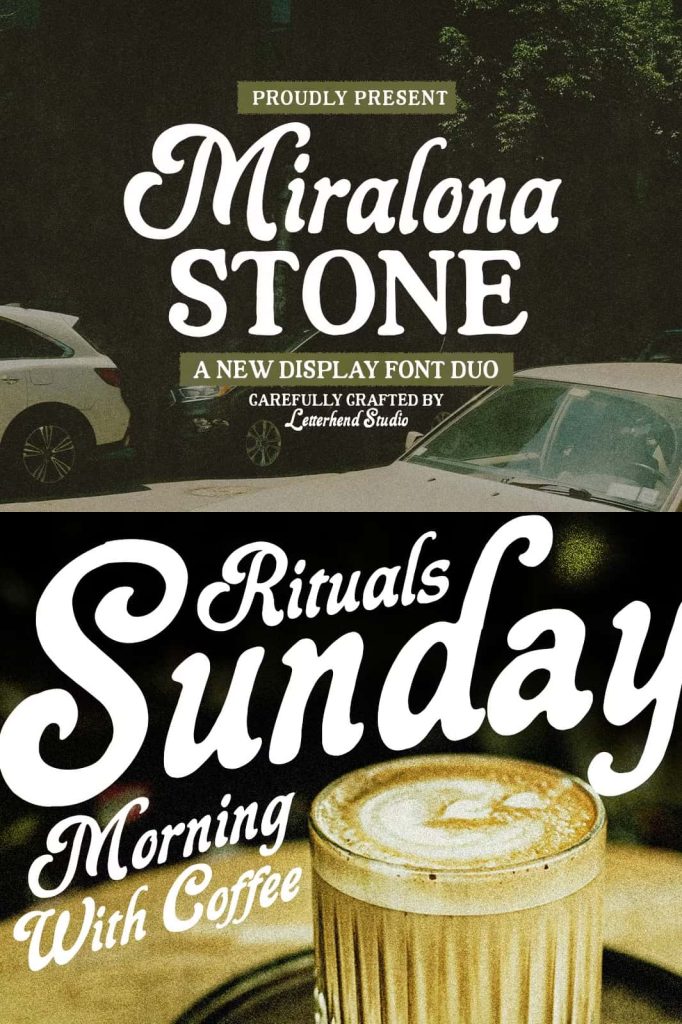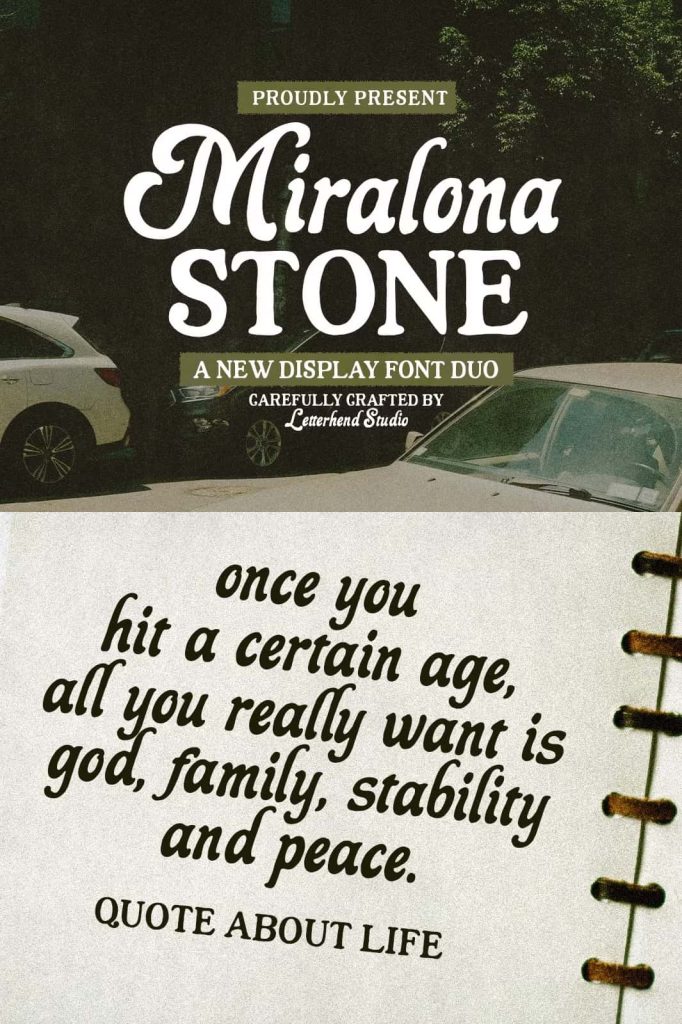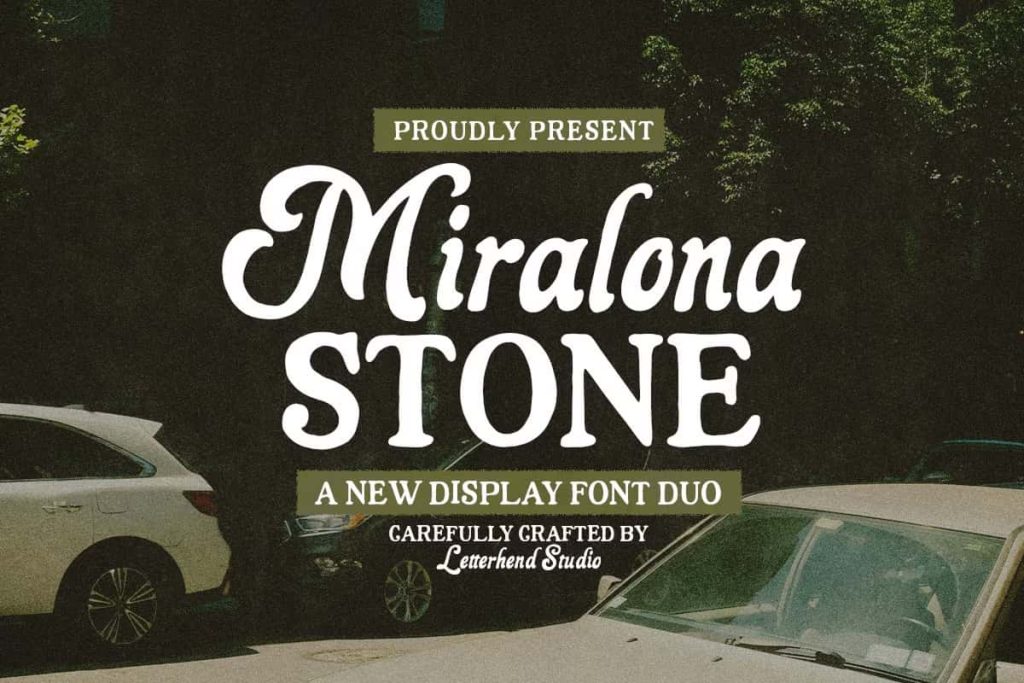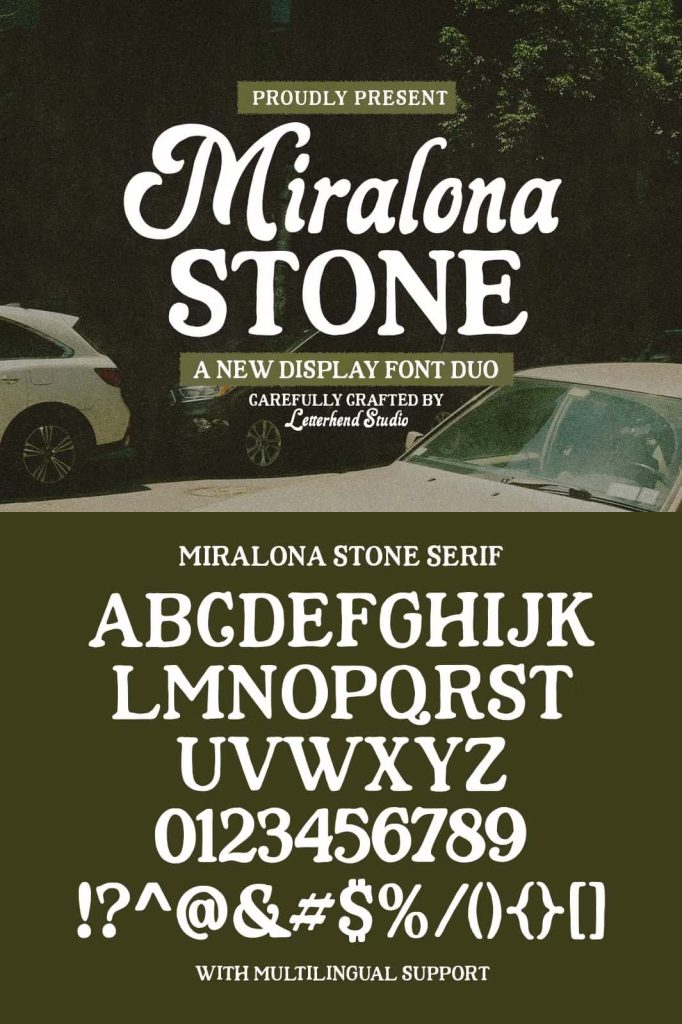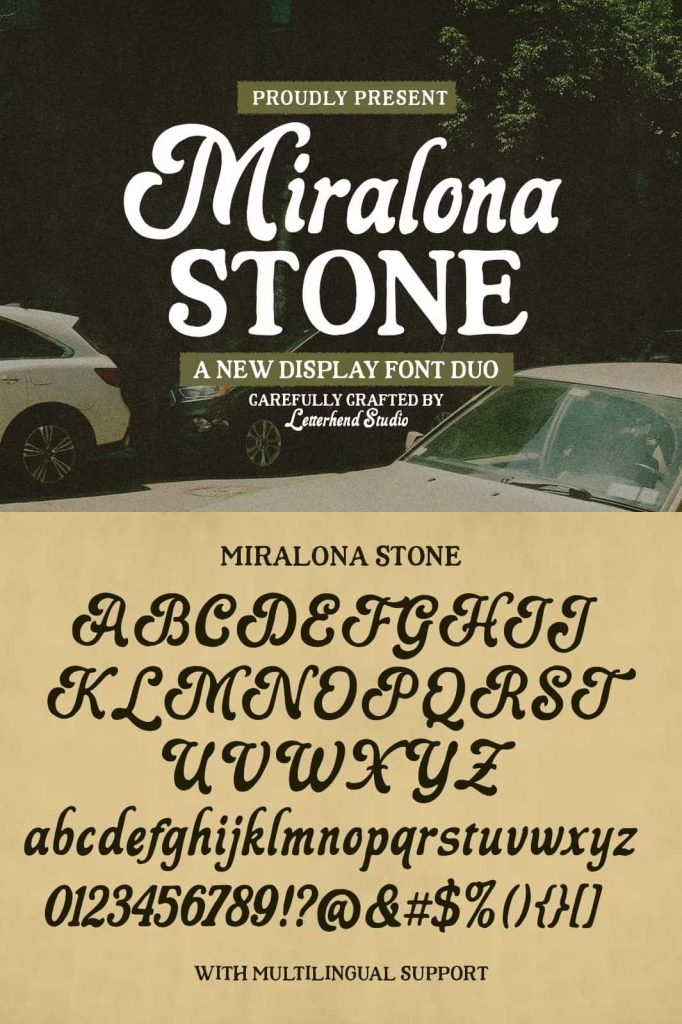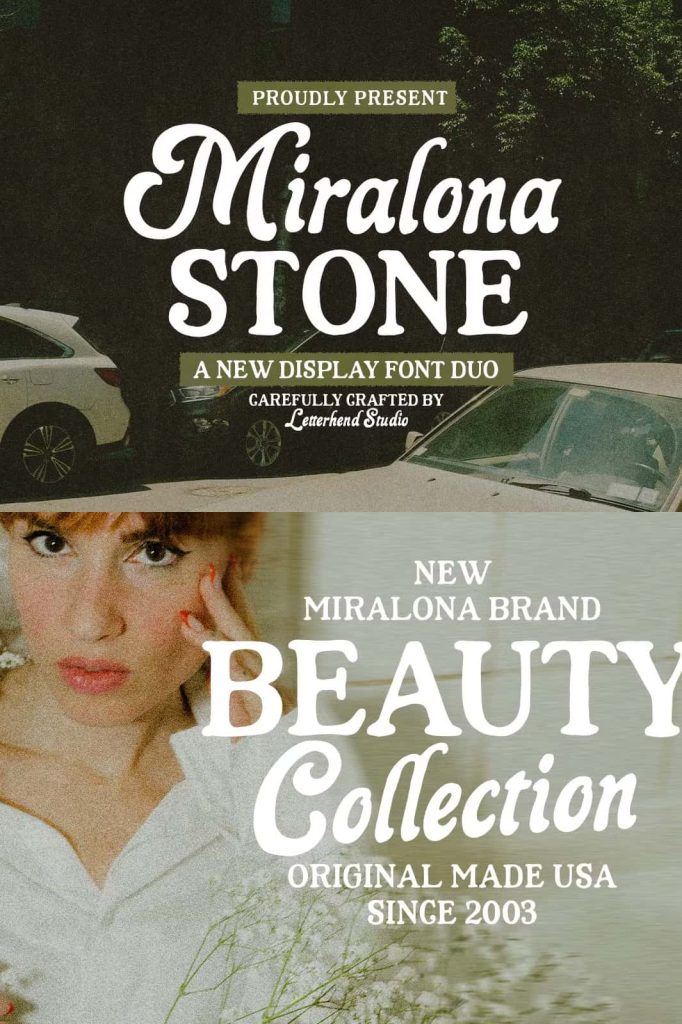
Miralona Stone – A Bold and Expressive Display Font Duo
Miralona Stone is a bold and expressive display font duo that combines vintage elegance with modern strength. By bringing together an ornate script and a sturdy serif typeface, this versatile pair gives designers the freedom to create typography with contrast, personality, and a timeless visual presence.
The script style introduces flowing forms and handcrafted charm, creating an expressive appearance that can add warmth and sophistication to a design. In contrast, the serif delivers a stronger and more structured personality, making it an excellent choice for headlines, logos, packaging, and other applications where typography needs to command attention.
Together, these two styles create a balanced typographic system. The script can add decorative detail and personality, while the serif establishes structure and visual authority. Use them individually or combine them within the same composition to create a stylish contrast that feels both nostalgic and contemporary.
A Distinctive Combination of Script and Serif
The strength of Miralona Stone comes from the relationship between its two complementary styles. Each typeface offers a different visual personality, yet they work together naturally to create a cohesive design language.
The ornate script brings movement to your typography. Its flowing character can make names, short phrases, taglines, and decorative headlines feel handcrafted and expressive. Use it when you want to introduce elegance, personality, or a sense of artistic detail.
The serif takes a more confident approach. Its sturdy construction creates strong visual weight, making it effective for headlines, brand names, packaging titles, and editorial statements. When you combine the two, the contrast creates an immediate visual hierarchy.
Vintage Elegance with a Modern Perspective
Miralona Stone draws from the visual appeal of vintage typography while maintaining enough strength and flexibility for modern design. Its classic influences can evoke old advertisements, heritage brands, handcrafted signage, editorial covers, and traditional packaging.
At the same time, the bold structure of the serif keeps the family from feeling overly delicate or dated. This balance allows designers to create work that references the past while maintaining a confident contemporary appearance.
Use Miralona Stone for projects that need a sense of history, craftsmanship, and personality. It can transform a simple headline into a visual statement while providing enough flexibility to support a complete branding system.
The Ornate Script Style
The script component of Miralona Stone provides an elegant and decorative alternative to conventional display lettering. Its flowing forms create a handcrafted impression that works especially well when typography needs to feel personal and expressive.
Use the script for logos, brand signatures, wedding stationery, invitations, packaging details, product names, fashion graphics, and decorative headlines. Its ornate character can help emphasize a specific word or phrase and create a strong focal point within a composition.
Because the script carries significant visual personality, it can also work effectively as a standalone display style. Use it sparingly with generous spacing and a simple supporting layout to allow its decorative details to remain visible.
The Strong and Sturdy Serif
The serif style provides the structural foundation of the Miralona Stone duo. Its bold appearance makes it particularly effective for high-impact typography where the message needs to stand out immediately.
Use the serif for large headlines, logos, packaging names, posters, magazine titles, editorial layouts, and advertising graphics. Its strong presence helps establish hierarchy while giving the design a confident and established appearance.
The serif can also support more minimal compositions. Pair it with clean backgrounds, restrained layouts, or simple graphic elements to create a modern interpretation of vintage typography.
Create Memorable Logos and Branding
Miralona Stone gives branding designers two complementary tools for developing distinctive identities. Use the serif to establish the main structure of a logo and introduce the script as a decorative accent, or reverse the approach and let the script create the primary signature while the serif provides supporting information.
This combination works particularly well for fashion labels, lifestyle brands, restaurants, cafés, boutique businesses, beauty products, creative studios, and heritage-inspired companies. The contrast between the two styles can help create a brand identity that feels sophisticated without becoming predictable.
Perfect for Packaging Design
Packaging provides an ideal environment for Miralona Stone because both styles can serve different purposes. Use the bold serif for product names and primary headlines, then add the script to introduce decorative details, flavor names, taglines, or secondary messaging.
This approach creates an engaging hierarchy that guides the viewer through the package. The serif attracts attention while the script adds character and refinement. Together, they can give products a distinctive shelf presence.
Miralona Stone works particularly well for vintage-inspired food packaging, specialty products, fashion packaging, beauty brands, handmade goods, stationery, and lifestyle products.
Bring Character to Editorial Layouts
The combination of script and serif also makes Miralona Stone useful for editorial design. Use the serif for magazine headlines, feature titles, pull quotes, and prominent editorial statements. Introduce the script for section labels, decorative accents, or featured words.
This contrast can help create sophisticated magazine covers, lookbooks, brochures, posters, and promotional publications. Experiment with scale and spacing to establish a strong hierarchy while keeping the overall layout balanced.
Ideal for Retro-Inspired Visuals
If your project needs a retro aesthetic, Miralona Stone offers an effective typographic foundation. Its vintage character can complement old-style illustrations, textured backgrounds, muted color palettes, classic photography, and handcrafted graphic elements.
Create posters that resemble vintage advertisements, packaging that references heritage products, or branding that suggests decades of craftsmanship. The font duo provides enough flexibility to interpret retro design in a contemporary way rather than simply reproducing an old-fashioned look.
Creative Projects for Miralona Stone
- Logo and brand identity design
- Vintage-inspired branding
- Fashion and lifestyle identities
- Product packaging
- Food and beverage labels
- Beauty and cosmetic branding
- Editorial layouts
- Magazine covers
- Posters and advertisements
- Wedding invitations and stationery
- Restaurant and café branding
- Handcrafted product identities
- Apparel and merchandise graphics
- Social media promotional designs
- Retro-inspired advertising campaigns
Create Strong Typographic Contrast
Contrast can make typography more dynamic, and Miralona Stone provides contrast directly within the font duo. The flowing script and bold serif naturally create different visual textures, allowing you to build compositions with depth and hierarchy.
Try using the serif for the main headline and the script for a short accent phrase. Alternatively, use the script as the focal point and let the serif provide supporting information. You can also combine the two within a single brand name to create a custom-looking wordmark.
For a polished result, avoid giving both styles equal visual weight. Choose one as the primary voice and allow the second style to support it. This approach keeps the composition clear while maximizing the impact of the contrast.
A Versatile Font Duo for Timeless Design
Miralona Stone combines ornate script lettering with a bold serif to create a flexible display font duo for designers who want elegance and strength in the same project. Its handcrafted script adds personality and movement, while its sturdy serif delivers confidence and visual impact.
From logos and packaging to editorial layouts, posters, invitations, apparel, and branding systems, the duo adapts to a wide range of creative applications. Its vintage-inspired personality gives designs a timeless quality, while its bold construction keeps the overall aesthetic relevant to modern projects.
Choose Miralona Stone when your design needs expressive typography with a strong visual identity. Use the script to add handcrafted elegance, the serif to establish authority, or combine both to create stylish contrast that makes your project memorable.